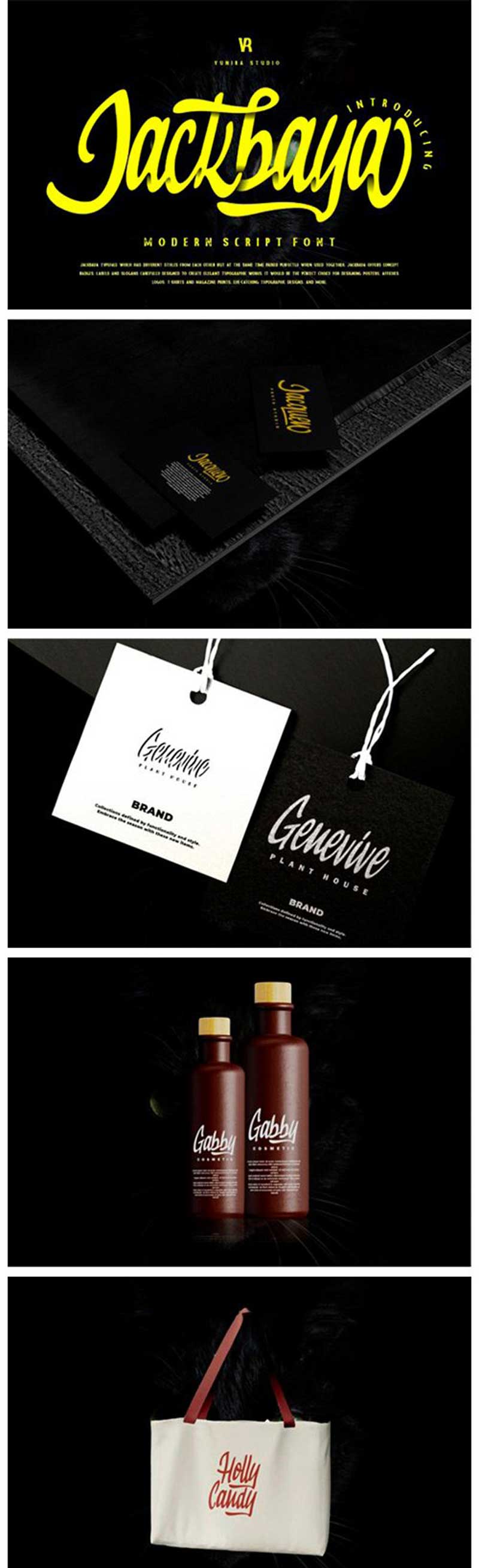
Jackbaya Font
Jackbaya is a chic, refined script font that emanates sophistication and elegance. Its stylish alternates and ligatures make this font the perfect match for any project.